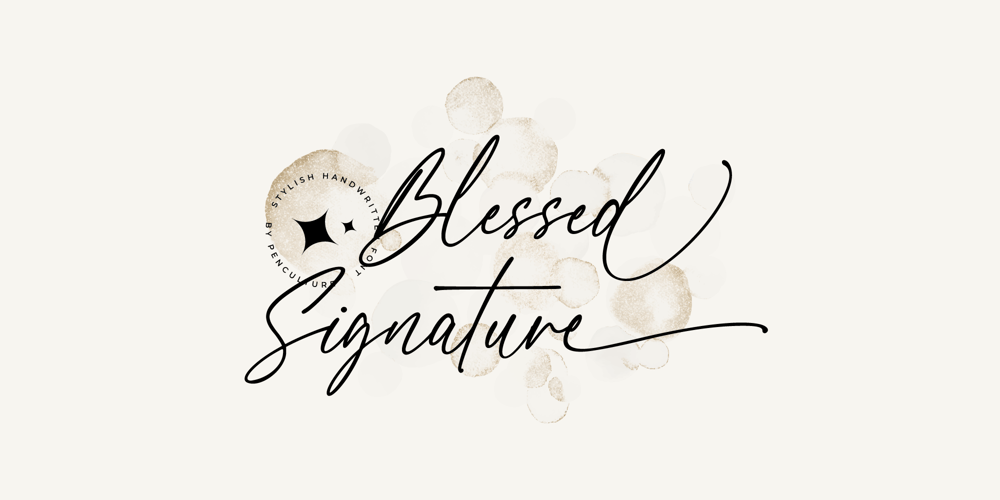
Blessed Signature Font Family was designed by Revo Farsiky and published by Pen Culture. Blessed Signature contains 1 styles and family package options. Proudly present Blessed Signature Font, A stylish handwritten font with lovely curve which will be perfect for branding, wedding invitations, websites and more.Blessed Signature comes with a full set of uppercase and lowercase, number and punctuation, and 60 stylish ligatures + alternate. There are 2 types of ending swashes that you can use and combine to make your design project more interesting.I really hope you enjoy it – please do let me know what you think, comments & likes are always hugely welcomed and appreciated. More importantly, please don’t hesitate to drop me a message if you have any issues or queries.Thank you